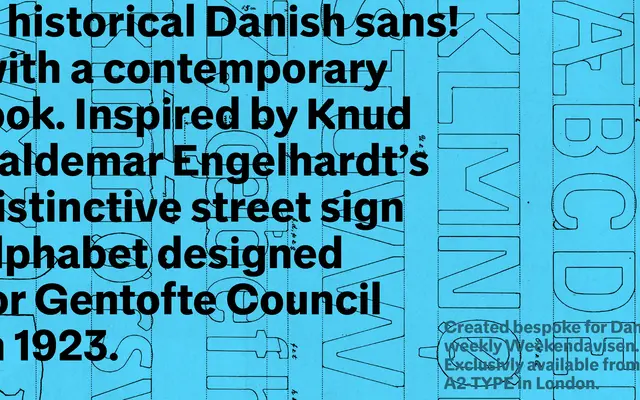
WEA Sans
A2-Type · 2021
WEA Sans specimen from A2-Type
The sans-serif arm of a bespoke type system commissioned by Weekendavisen, a Danish weekly broadsheet with roots tracing to 1749, awarded World's Best Designed Newspaper in 2021 and 2026.
Designed as part of a four-subfamily system for Weekendavisen alongside WEA Text, WEA Display and WEA Hairline, the Sans runs across nine weights from Thin to Black with matching italics and extends into Condensed and X Condensed cuts. The full system won the Tokyo TDC Award in 2021 and the newspaper's redesign has been recognised twice by the Society for News Design as the world's best designed paper. Suited to print and screen across UI, headline and body roles.
A newspaper sans drawn for editorial use across print and screen, with humanist proportions suited to continuous reading across a range of weights and widths.